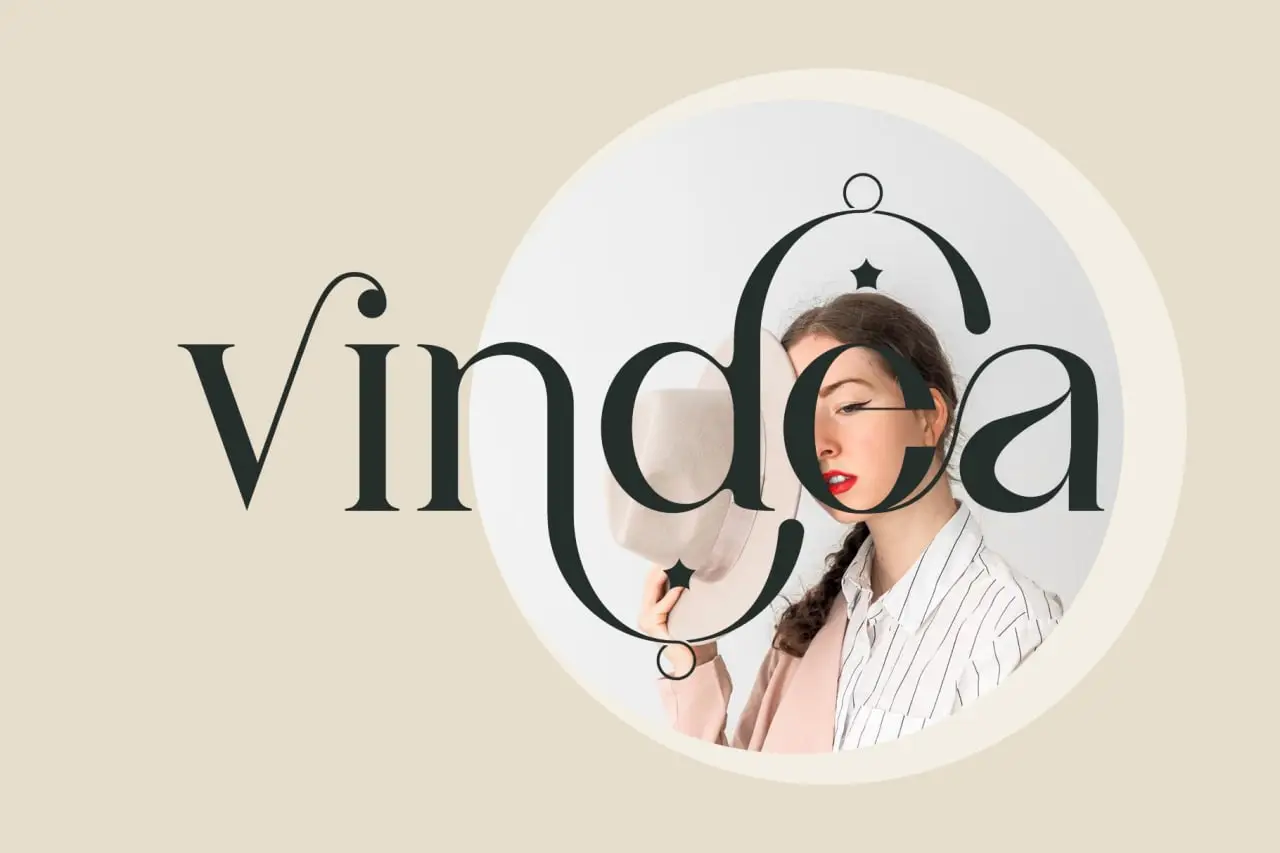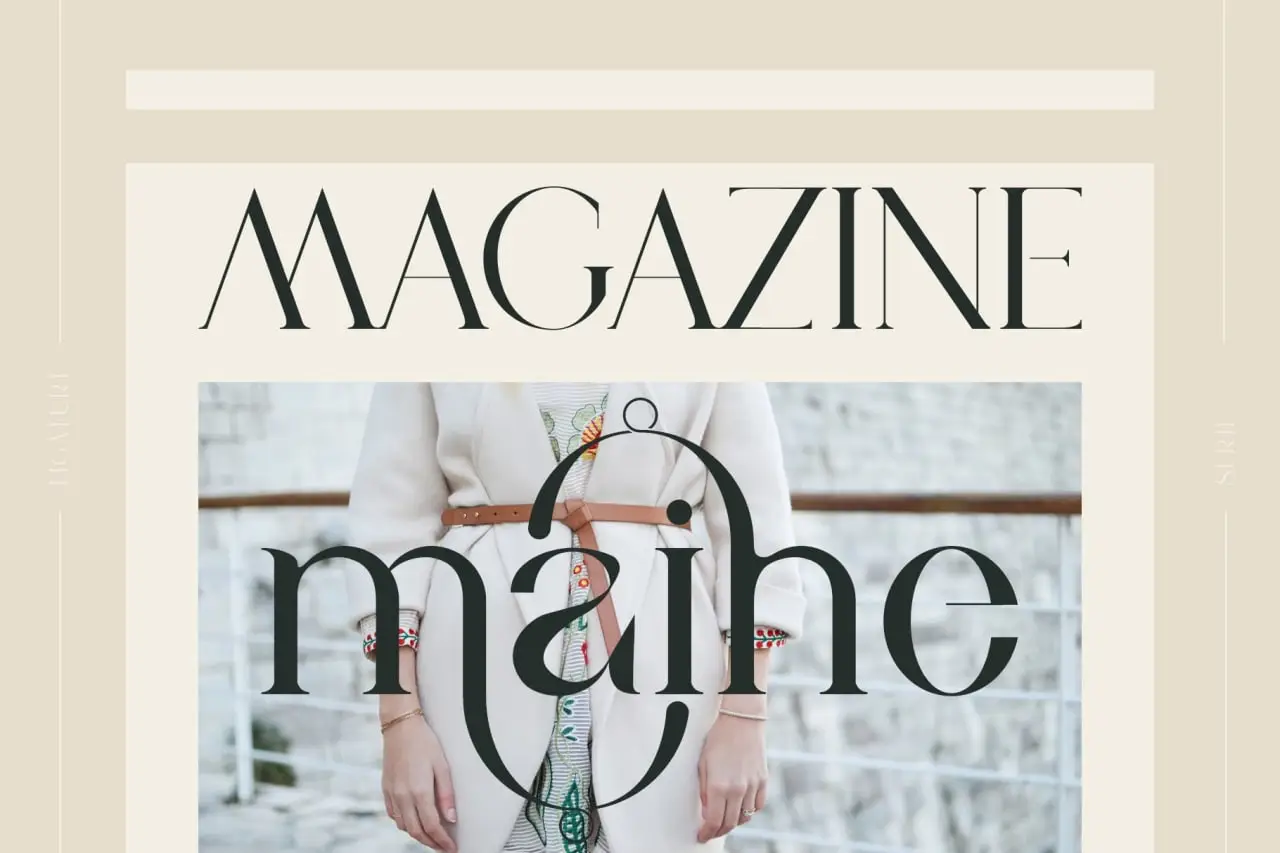
Vindea Font
The Vindea Font is a beautifully crafted typeface that combines elegance with modern aesthetics. This versatile font is perfect for a variety of applications, from branding and logos to web and print design.
• Multiple weights for flexibility
• Ideal for creating eye-catching logos and branding materials
• Use in web design for a modern look
• Perfect for print projects like business cards and flyers